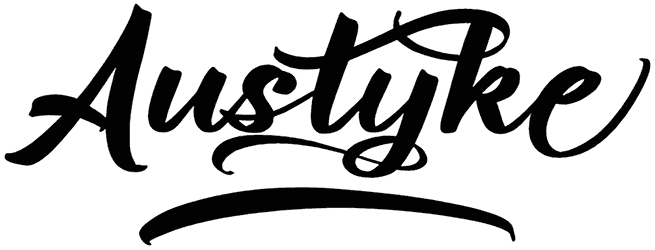
Austyke Font
Austyke can be used in happy and fun concepts, and it looks excellent in projects that require a serious and professional atmosphere. This script font has a smooth design that does not strain the eyes and has a perfect opportunity to design anything you want.
Armed with this handwritten font, you can spend less time naturalizing your writing and adding a human touch. Because Austyke inherently has an organic feel that can convey your message on wedding cards, apparel, and invitations.